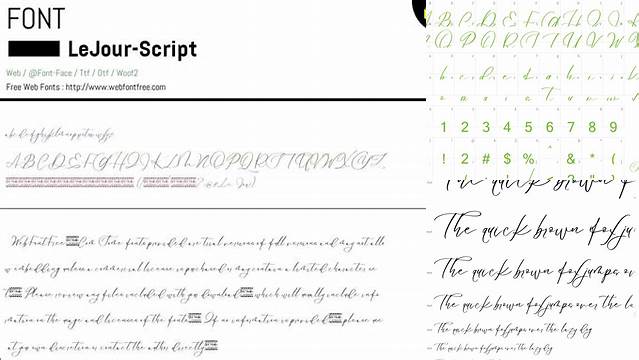
Lejour Script Font: Free Download & Usage Guide
Hey guys! Are you on the hunt for a beautiful, flowing script font? Look no further! The Lejour Script Font is a fantastic choice for adding a touch of elegance and personality to your projects. Whether you're designing invitations, creating branding materials, or just want to spice up your social media graphics, this font could be your new best friend. In this guide, we'll dive deep into everything you need to know about the Lejour Script Font, including where to find it for free (or at least explore your options!), how to use it effectively, and some creative ideas to get you started. So, buckle up, and let's explore the world of Lejour Script Font! This is your guide, guys.
Lejour Script Font: An Overview
Before we jump into the nitty-gritty details, let's take a moment to appreciate what makes Lejour Script Font so special. Typically characterized by its flowing strokes, elegant curves, and overall sophisticated aesthetic, this font is designed to mimic the look of natural handwriting. It's perfect for projects where you want to convey a sense of warmth, authenticity, or a touch of luxury. Think wedding invitations, handwritten notes (or digital versions thereof!), and branding for businesses that want to project a refined image. Now, let's dive deeper, guys.
Using Lejour Script Font for Branding
One of the most popular uses for script fonts like Lejour Script Font is branding. A well-chosen script font can add a touch of elegance and personality to your brand, making it more memorable and appealing to your target audience. However, it's important to use script fonts strategically. Overusing them can make your brand look cluttered or inconsistent. Consider using a script font for your logo or tagline, and then pairing it with a more readable sans-serif font for the body of your website or marketing materials. This creates a visually appealing contrast and ensures that your message is clear and easy to read. This is branding 101, guys!
Lejour Script Font for Wedding Invitations
Wedding invitations are another classic application for script fonts. The elegant, flowing strokes of a font like Lejour Script Font perfectly complement the romantic and celebratory nature of a wedding. When designing wedding invitations, consider using the script font for the names of the bride and groom, as well as for key phrases like “You're Invited” or “Happily Ever After.” Pair it with a simple serif font for the details of the ceremony and reception to ensure readability. Remember to choose a font color that complements the overall design of the invitation and use high-quality paper to enhance the overall aesthetic. Make those invitations pop, guys!
Lejour Script Font in Graphic Design
Lejour Script Font can be a valuable asset in various graphic design projects, adding a touch of sophistication and personality. When incorporating it into your designs, consider its legibility and ensure it complements the overall aesthetic. Use it sparingly for headings or accents, pairing it with a more readable font for body text. Experiment with different sizes, weights, and colors to achieve the desired visual impact. Remember to maintain consistency with your brand's visual identity and consider the target audience when making design choices. Let your creativity flow, guys!
Lejour Script Font and Social Media Graphics
In the realm of social media, where visuals reign supreme, Lejour Script Font can elevate your graphics and captivate your audience. Use it strategically to highlight key messages, create eye-catching headlines, or add a personal touch to your posts. Pair it with high-quality images or videos that align with your brand's aesthetic and target audience. Remember to optimize your graphics for different social media platforms and maintain consistency with your brand's visual identity. Let your social media shine, guys!
Lejour Script Font and Calligraphy
Mastering Lejour Script Font: Tips and Tricks
To master the art of using Lejour Script Font, practice regularly and experiment with different design techniques. Explore online resources, tutorials, and design communities to learn new skills and get feedback on your work. Stay open to new ideas and be willing to experiment with different approaches. Practice makes perfect, guys!